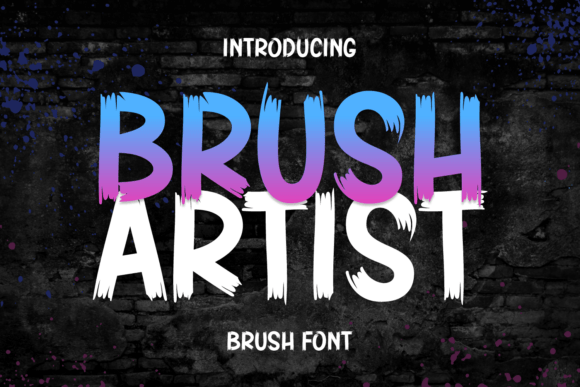
Unleashing Creativity: The Power of the Brush Artist Font
Have you ever stared at a blank canvas, brush in hand, waiting for inspiration to strike? The thrill of creating something new and raw, with no second chances to refine or correct, can be exhilarating. This is the essence of the Brush Artist Font, a dynamic and expressive typeface that embodies the spirit of spontaneous artistic creation.
The Brush Artist Font is a versatile and impactful font designed to evoke a sense of urgency, creativity, and rugged authenticity. Its raw, handcrafted brushstroke aesthetic gives it a unique and energetic presence that sets it apart from cleaner fonts. With a complete alphabet, numerals, and comprehensive punctuation and symbol set, this font is perfect for designers looking to add a touch of artistic flair to their designs.
Brush Artist Font Key Features
- Font Family: Brush Artist Font is a unique, hand-painted font designed to mimic the look of brush strokes.
- Character Set: Includes a wide range of characters, including uppercase and lowercase letters, numbers, and punctuation marks.
- Unique Characteristics: Features a distinctive, hand-painted look with varying brush stroke widths and textures, adding a touch of personality to designs.
Brush Artist Font Review
As a designer, I was excited to try out the Brush Artist Font. Here’s my honest review.
- Unique Hand-Drawn Feel: The Brush Artist Font has a beautiful, hand-drawn feel that’s perfect for creative projects.
- High-Quality Vectors: The font comes in high-quality vector format, making it easy to scale and use in various designs.
- Good Support for Multiple Languages: The font supports a wide range of languages, making it a great option for global projects.
- Limited Glyphs: The Brush Artist Font has a relatively limited set of glyphs, which may not be suitable for projects that require a wide range of characters.
- No Italic or Bold Variations: The font does not come with italic or bold variations, which may limit its use in certain designs.
The Brush Artist Font is a great option for designers looking for a unique, hand-drawn feel. While it has some limitations, its high-quality vectors and good support for multiple languages make it a solid choice for creative projects. With a bit of creativity, I think the Brush Artist Font can be a great addition to any designer’s toolkit.
Practical Application Guide for Brush Artist Font
Brush Artist Font is ideal for:
- Creating hand-drawn or handwritten text effects.
- Adding a personal touch to digital art and designs.
- Creating custom logos and branding materials.